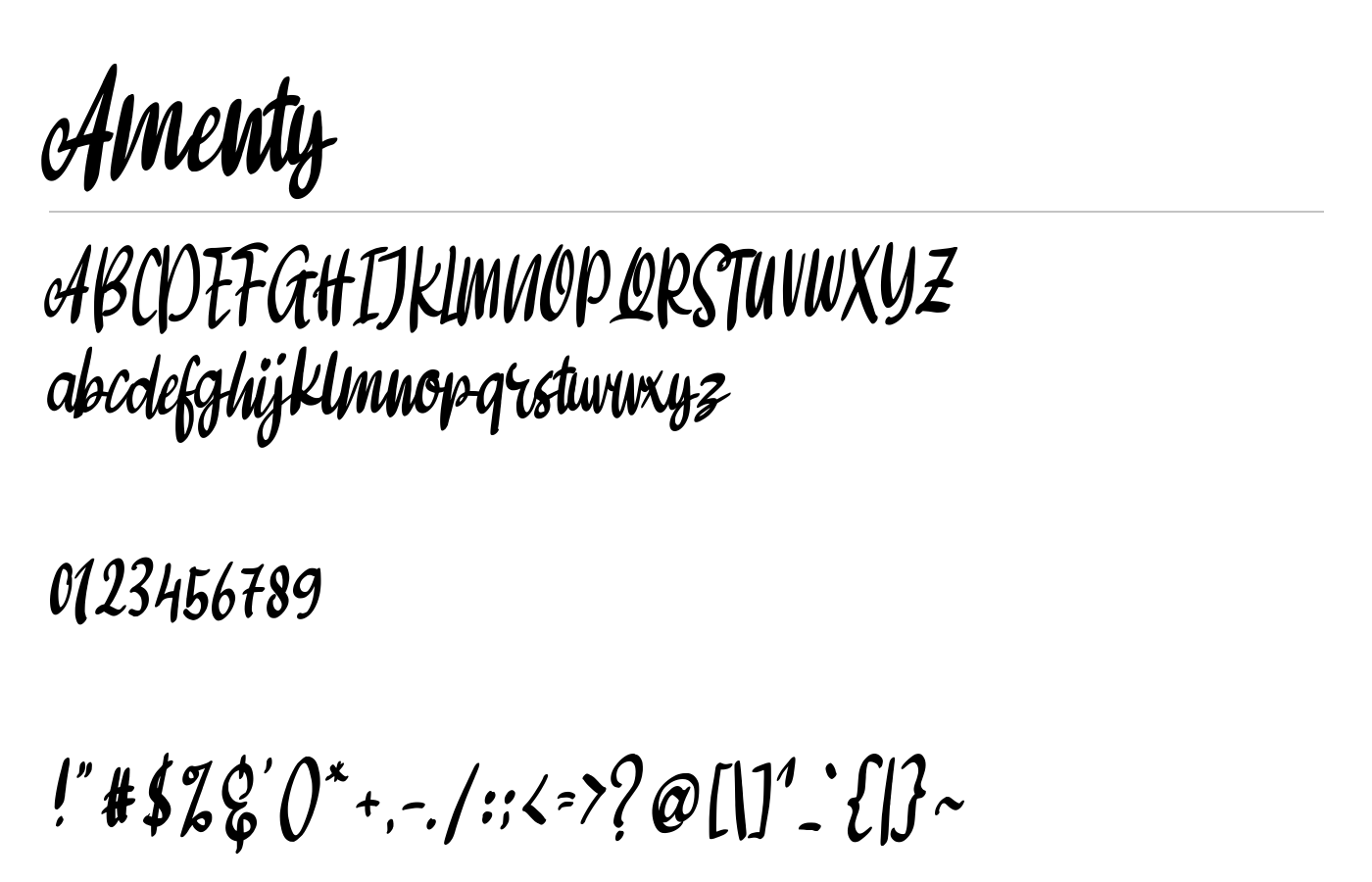
Amenty is a lively script font with a bold, handwritten style that adds a personal and artistic flair to any design. Its fluid strokes and slightly condensed letterforms create a dynamic yet approachable feel, perfect for brands seeking an authentic and creative touch. This font works well in logos, headlines, and packaging where a friendly, expressive personality is desired.
Amenty Font
About Amenty Font
| Font family | Amenty Font |
| Designer | Fannan Studio |